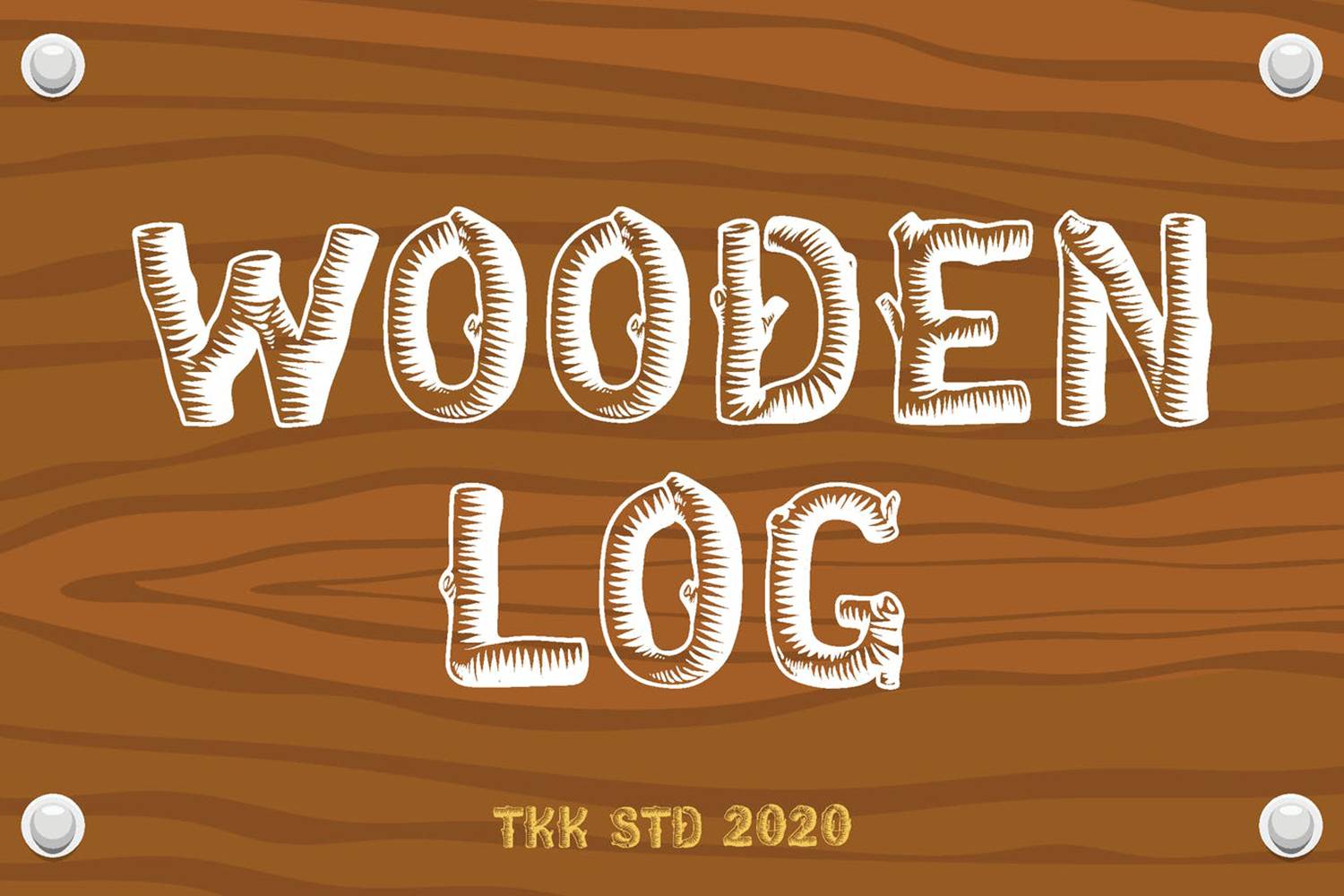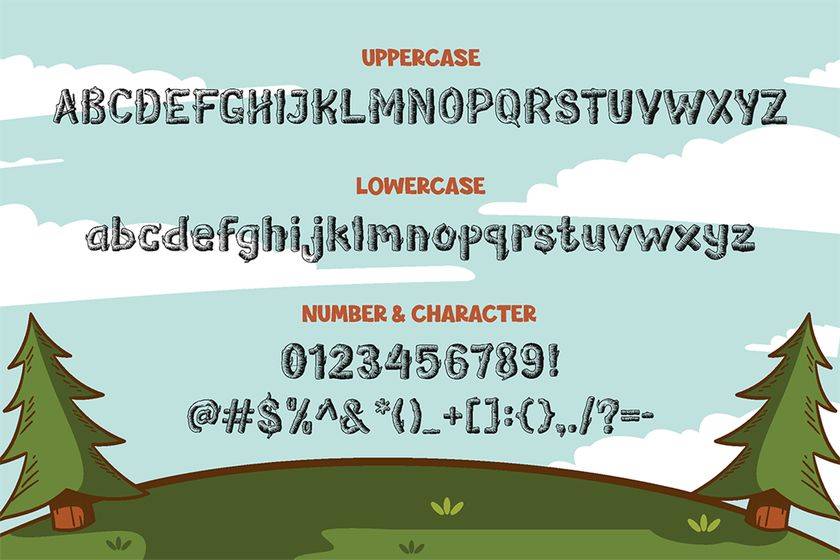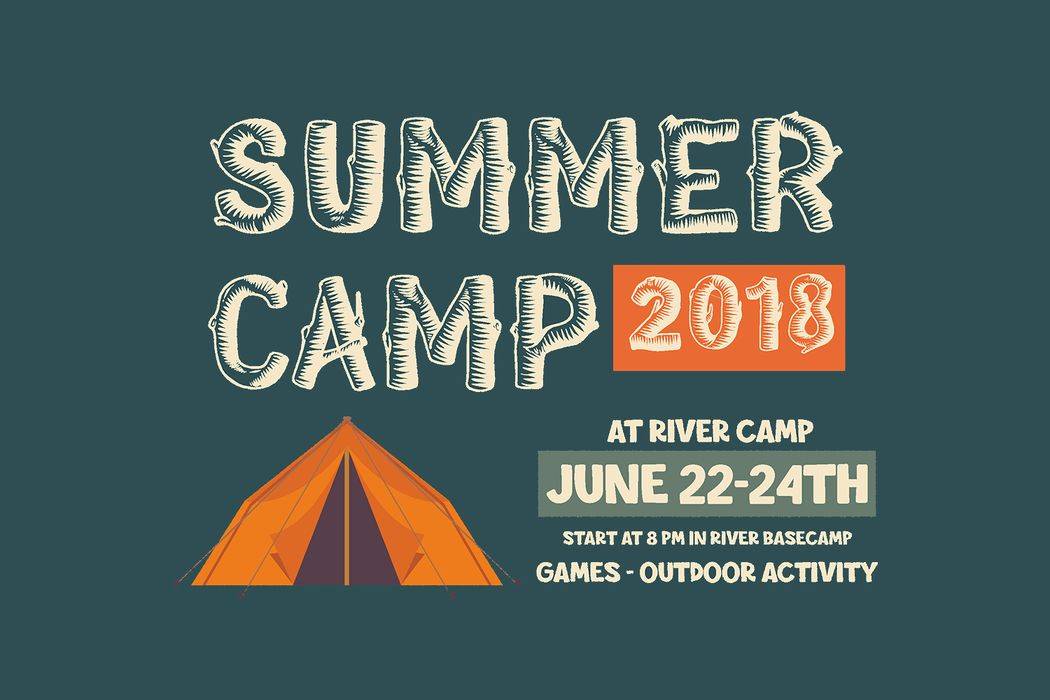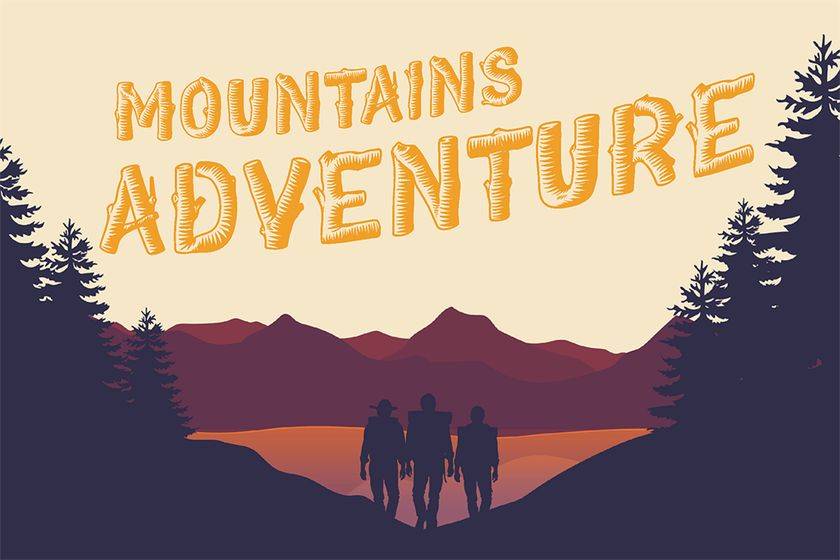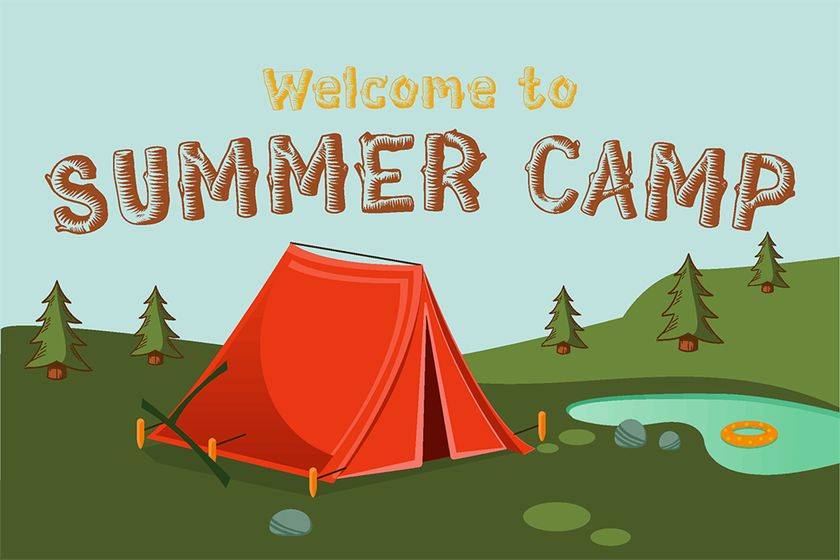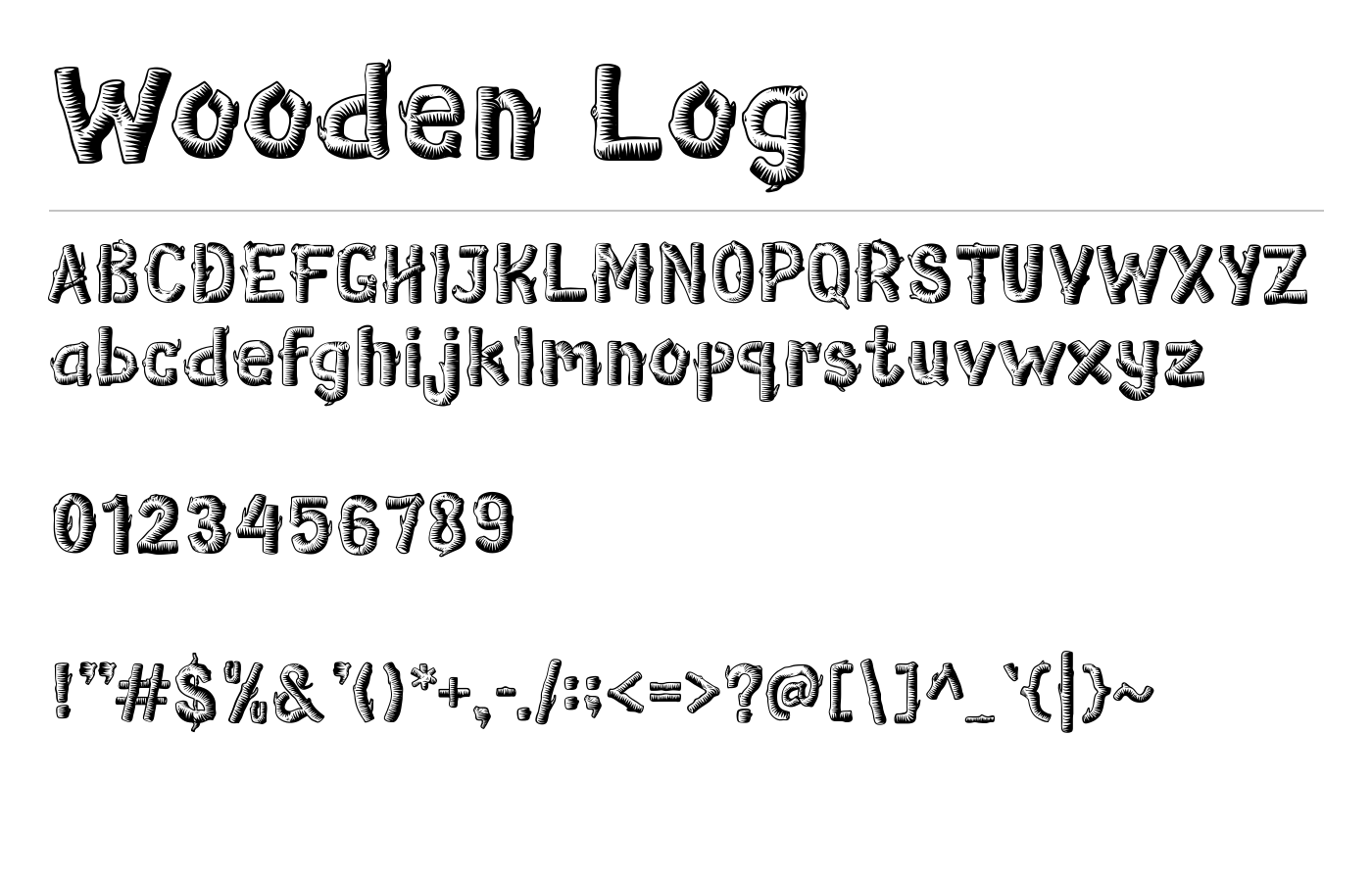
Wooden Log is a playful, textured display font that mimics the rough, carved surface of wooden logs, giving it a hand-crafted and rustic feel. Its bold, irregular letterforms with pronounced shading details are perfect for creating eye-catching headlines and designs that need a natural, outdoor, or vintage vibe. This font works best for logos, posters, and packaging where a unique, rugged personality is desired.
Wooden Log Font
About Wooden Log Font
| Font family | Wooden Log Font |
| Designer | Sahirul |